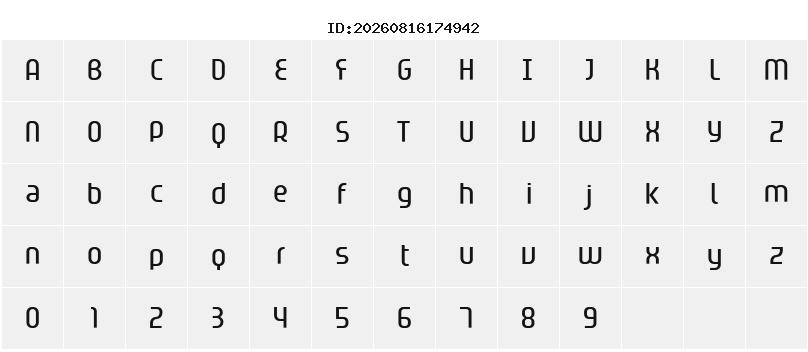
Spion Verpflanzung2 Preview
• Font Name: Spion Verpflanzung2
About Spion Verpflanzung2.otf
Spion Verpflanzung2.otf is a modern, elegant sans-serif font designed for ultimate readability and visual harmony. Perfect for branding, headlines, web design, and print materials.